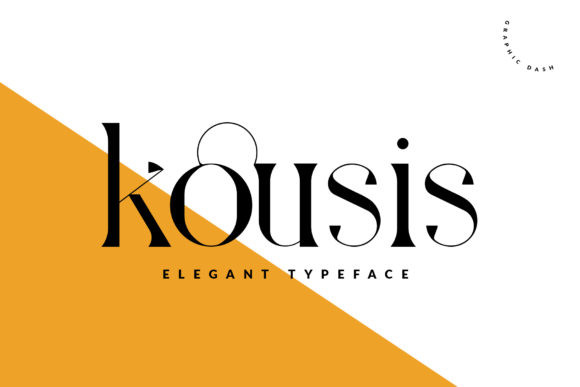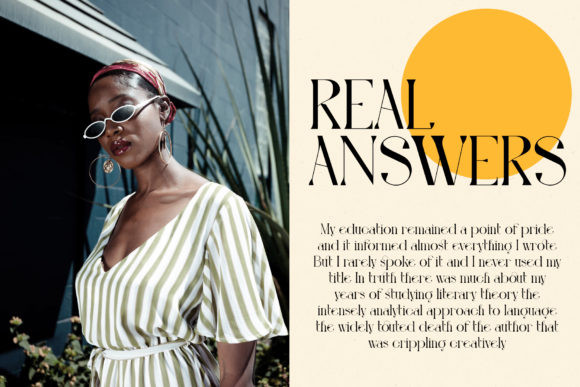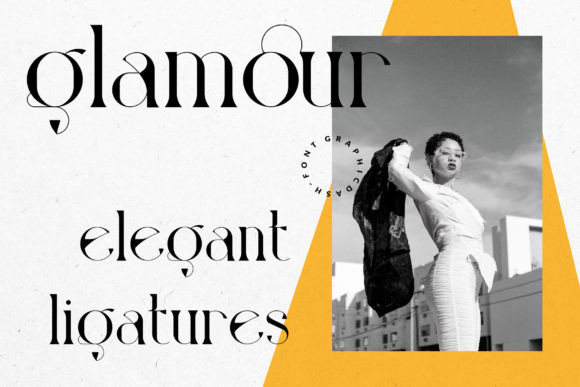
Kousis Font
Kousis is a superb serif font. Kousis will look outstanding in any context, whether it’s being used on busy backgrounds or as a standalone headline!